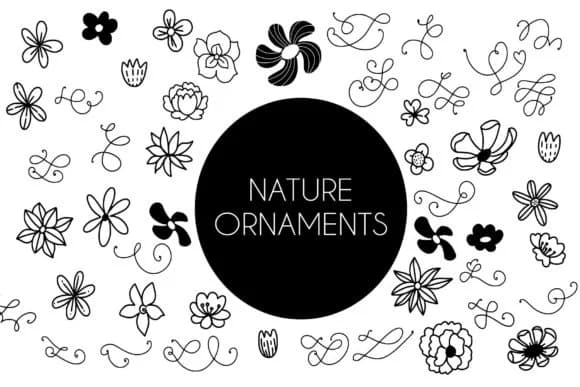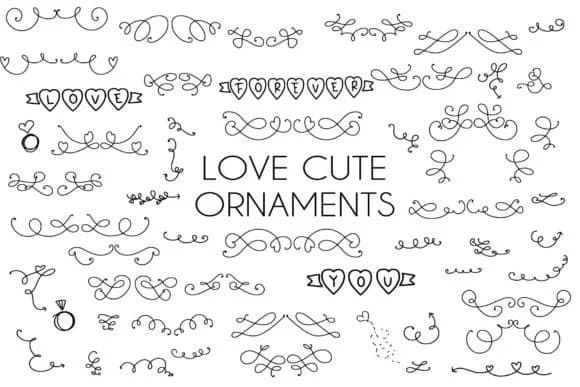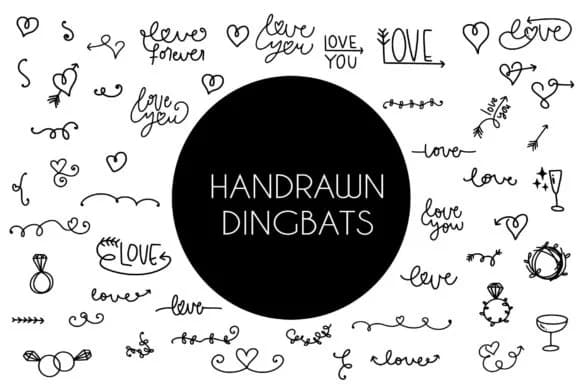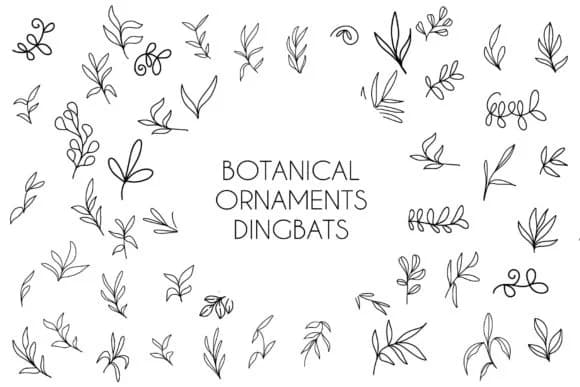
You're laying out a vintage wedding invitation suite with a floral border, and you need decorative elements that feel handcrafted rather than sterile. Handrawn Ornaments by goodigital delivers exactly that: a comprehensive dingbats font packed with delicate flourishes, ribbons, frames, and botanical accents that look like they came straight from a sketchbook. Each element carries that hand-drawn quality that reads as genuinely bespoke rather than templated.
This font shines for niche projects where ornamentation is the whole point. Wedding invitation suites with real hand-drawn character, Etsy product labels for vintage goods and small-batch skincare, scrapbooking layouts with authentic decorative touches, and boutique packaging that needs genuine personality all benefit from its retro aesthetic. You could also use these ornaments to frame headers in presentations, add visual flair to greeting card designs, or create ornamental borders for custom stationery. The ornaments work beautifully at large sizes, reading clearly both as standalone centerpieces and when woven through smaller layouts as subtle background flourishes.
Handrawn Ornaments Font